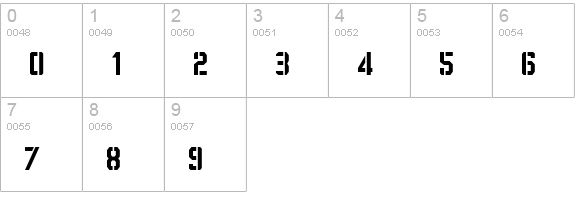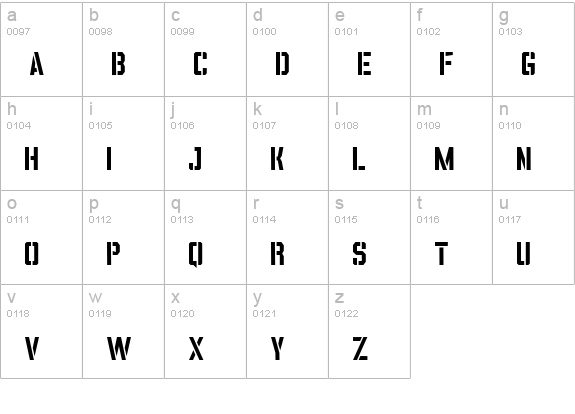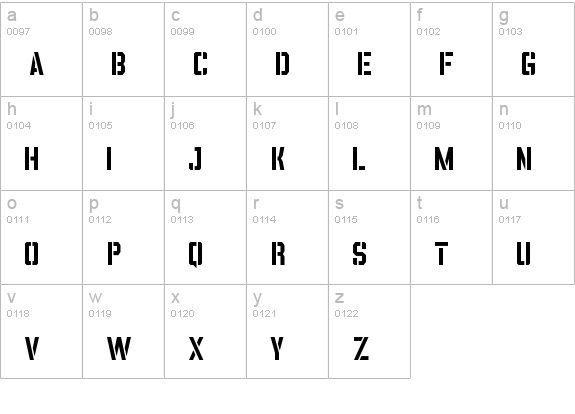
ITOMI VINCA STENCIL Font Details
Introducing ITOMI VINCA STENCIL, a captivating and versatile font that effortlessly blends modernity with a touch of retro charm. This typeface exudes a sense of boldness and uniqueness, making it the perfect choice for a wide range of creative projects. ITOMI VINCA STENCIL features clean lines and sharp edges, giving it a distinct and eye-catching appearance. Its stenciled design adds a touch of industrial elegance, making it ideal for graphic design, branding, logos, posters, headlines, and more. Whether you're looking to create a striking visual statement or add a touch of sophistication to your designs, ITOMI VINCA STENCIL will not disappoint. One of the most remarkable aspects of ITOMI VINCA STENCIL is that it is available for free. Yes, you heard that right! This premium-quality font can be freely downloaded from FontsMarket.com, allowing you to embrace its exceptional style without any cost. This generous offer ensures that designers, artists, and enthusiasts alike can access this captivating font and unleash their creativity without any limitations. With a comprehensive character set that includes uppercase and lowercase letters, numerals, punctuation, and special characters, ITOMI VINCA STENCIL offers the flexibility and versatility needed to bring your designs to life. Additionally, its extensive language support ensures that you can effectively communicate your message across various regions and cultures. So, why wait? Download ITOMI VINCA STENCIL today from FontsMarket.com and unlock a world of creative possibilities. Let this remarkable font become an integral part of your design toolkit, as you explore its endless potential to elevate your projects to new heights. With ITOMI VINCA STENCIL, you're not just receiving a font; you're gaining a powerful tool that will help you leave a lasting impression.